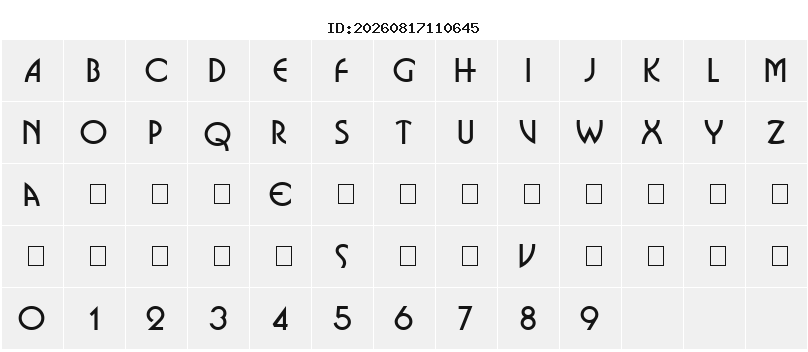
About SoloCaps.ttf
SoloCaps.ttf is a modern, elegant sans-serif font designed for ultimate readability and visual harmony. Perfect for branding, headlines, web design, and print materials.